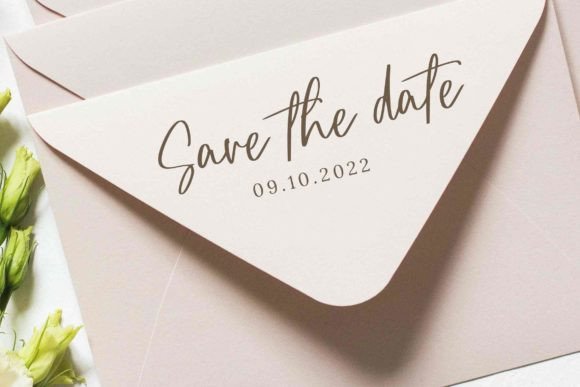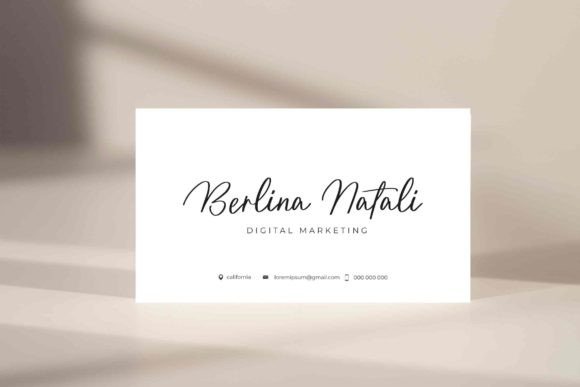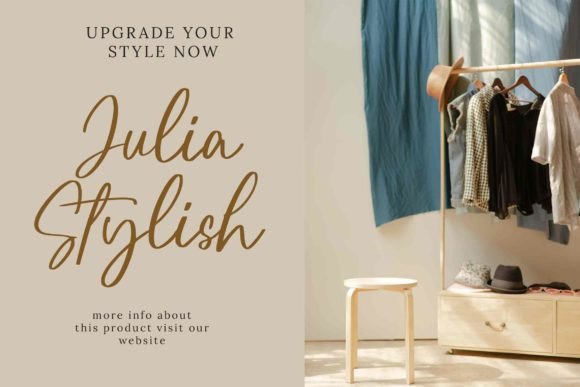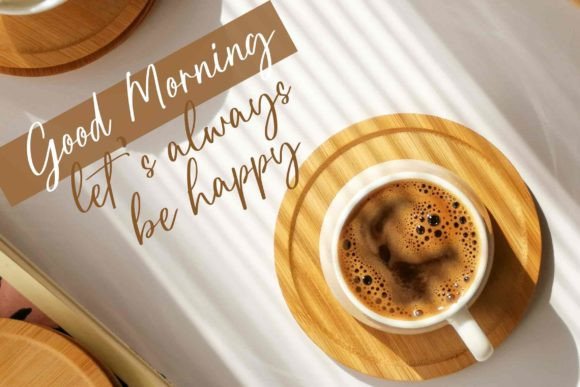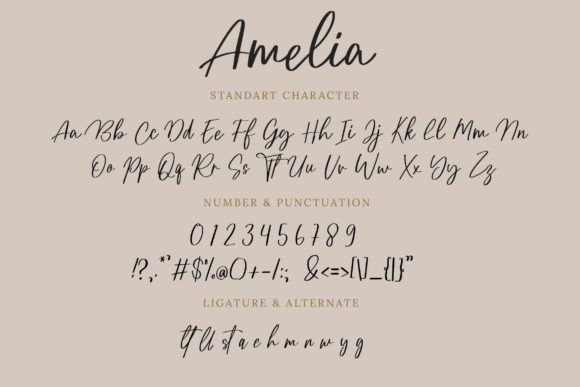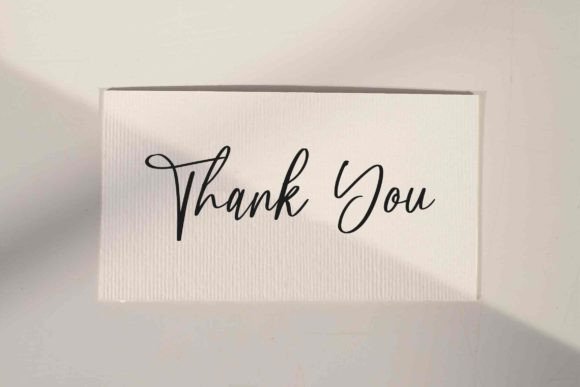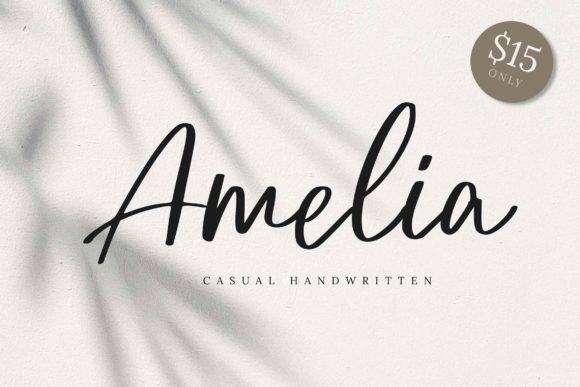
Introducing Amelia Font: Elevate Your Designs with a Neat and Casual Handwritten Script
Are you a designer or crafter looking for a font that can add a personal touch to your creations? Look no further than Amelia Font, a beautiful and versatile handwritten script font that’s perfect for a wide range of projects. In this article, we’ll take a closer look at Amelia Font, its features, and how it can elevate your designs.
What is Amelia Font?
Amelia Font is a neat and casual handwritten script font that’s designed to bring a touch of elegance and sophistication to your designs. With its smooth and flowing lines, Amelia Font is perfect for creating beautiful headings, titles, and text that will capture the attention of your audience.
Key Features of Amelia Font
- Unique and Handwritten Style: Amelia Font has a unique and handwritten style that’s perfect for creating personalized and eye-catching designs.
- Neat and Casual: The font has a neat and casual feel that’s perfect for a wide range of projects, from formal to informal.
- Highly Versatile: Amelia Font is highly versatile and can be used for a variety of projects, including logos, headings, titles, and more.
- Easily Readable: The font is easily readable, making it perfect for body text and other applications where readability is important.
Benefits of Using Amelia Font
So, why should you choose Amelia Font for your designs? Here are just a few benefits of using this amazing font:
- Adds a Personal Touch: Amelia Font adds a personal touch to your designs, making them stand out from the crowd.
- Elevates Your Designs: The font has the potential to elevate your designs, making them look more professional and polished.
- Saves Time: With Amelia Font, you can create beautiful designs quickly and easily, saving you time and effort.
- Perfect for a Wide Range of Projects: The font is perfect for a wide range of projects, including logos, brochures, posters, and more.
How to Use Amelia Font
Using Amelia Font is easy! Here are a few tips to get you started:
- Pair it with Other Fonts: Amelia Font pairs well with other fonts, so don’t be afraid to experiment with different combinations.
- Use it for Headings and Titles: The font is perfect for headings and titles, where you want to make a bold statement.
- Add it to Your Brand Identity: Consider adding Amelia Font to your brand identity, where it can help to create a consistent and recognizable look.
Who Can Benefit from Amelia Font?
Amelia Font is perfect for a wide range of designers and crafters, including:
- Graphic Designers: Graphic designers can use Amelia Font to create beautiful logos, brochures, and other marketing materials.
- Digital Artists: Digital artists can use the font to add a personal touch to their artwork.
- Crafters: Crafters can use Amelia Font to create beautiful handmade cards, gift tags, and other crafts.
- Small Business Owners: Small business owners can use the font to create a consistent and recognizable brand identity.
In conclusion, Amelia Font is a beautiful and versatile handwritten script font that’s perfect for designers and crafters looking to add a personal touch to their creations. With its unique and handwritten style, neat and casual feel, and highly versatile nature, Amelia Font is sure to elevate your designs and help you stand out from the crowd.